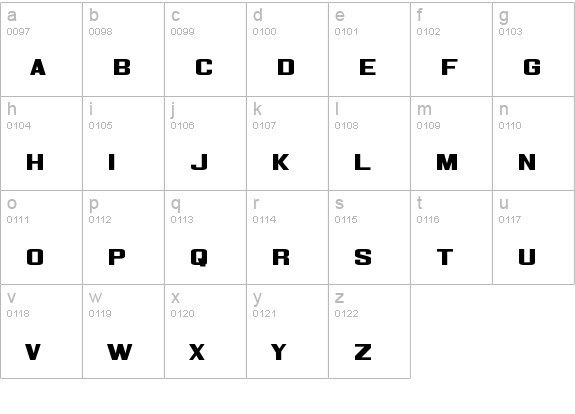
Corporate HQ Font Details
Introducing Corporate HQ font, a sleek and modern typeface designed for corporate and business use. With clean lines and a professional aesthetic, Corporate HQ is perfect for creating polished documents, presentations, and branding materials. This versatile font exudes sophistication and elegance, making it ideal for conveying a sense of professionalism and reliability. And the best part? Corporate HQ font is available for free download at FontsMarket.com. So whether you're designing a company logo, crafting a proposal, or creating a website, Corporate HQ font has got you covered. Elevate your projects with this stylish and contemporary typeface and make a lasting impression on your audience. Download Corporate HQ font today and take your designs to the next level!